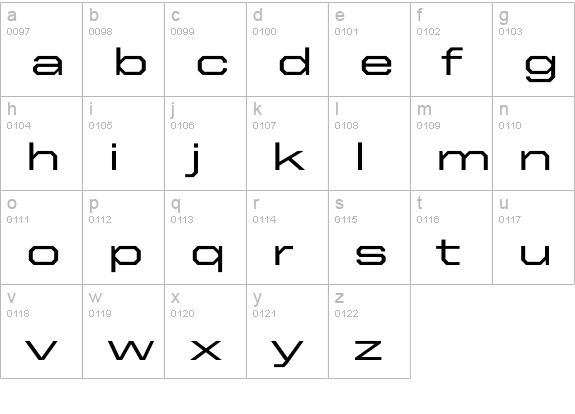
United Sans Ext Medium Font Details
United Sans Ext Medium is a balanced, medium-weight variant in the United typeface family \xE2\x80\x94 well suited to sub-headlines, navigation, and balanced editorial work.
United Sans Ext Medium is a modern and sleek typeface that combines simplicity with a touch of sophistication. It effortlessly captures attention and delivers a clean and professional look. With its medium weight, this font strikes the perfect balance between boldness and subtlety, making it an ideal choice for a wide range of design projects. The characters in United Sans Ext Medium are meticulously crafted, boasting a harmonious blend of straight lines and gentle curves. This attention to detail ensures legibility and readability, even at smaller sizes. The consistent letterforms lend themselves well to both headlines and body text, making this font incredibly versatile. One of the most exciting aspects of United Sans Ext Medium is that it is freely available to download at FontsMarket.com. This means that designers and creatives can easily access this high-quality font without any financial constraints. It's a font that empowers creativity and encourages experimentation, as it can be used without any licensing restrictions. Whether you're working on a branding project, a website design, or even a print layout, United Sans Ext Medium will elevate your work to new heights. Its modern aesthetic and timeless appeal will leave a lasting impression on your audience. So why wait? Download United Sans Ext Medium today and discover the freedom it brings to your design projects.